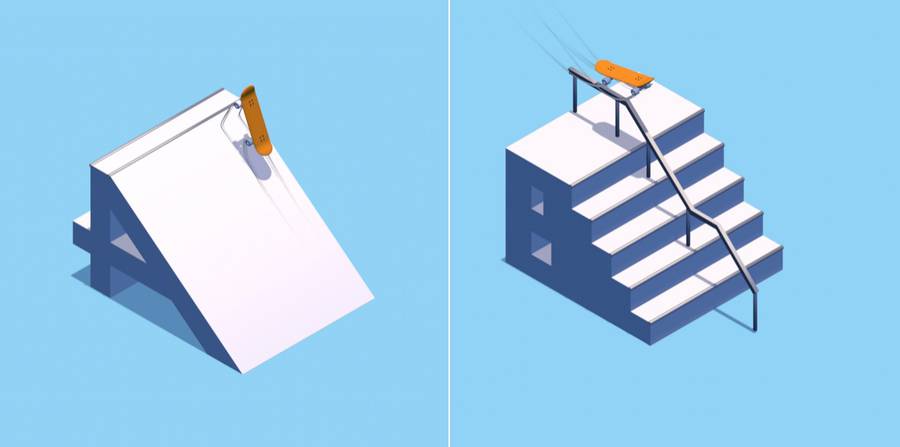
Keisuke Terashima is from Japan. As graphic designer, he imagined a font inspired by skatepark and skate tricks. All is animated in GIFs, for a playful and subtle content. To see all the Skatepark Font series, rendez-vous on his Behance.